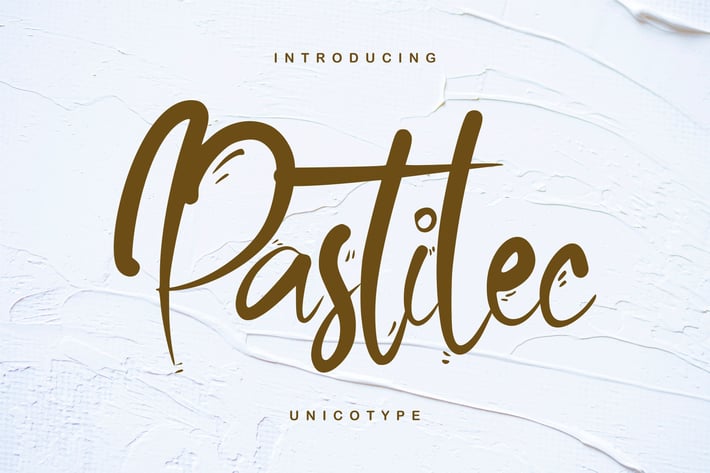
Pastilec | Unicotype Font
Pastilec | Unicotype Font with a calligraphy style, So beautiful on invitation like greeting cards, branding materials, business cards, quotes, posters, and more!